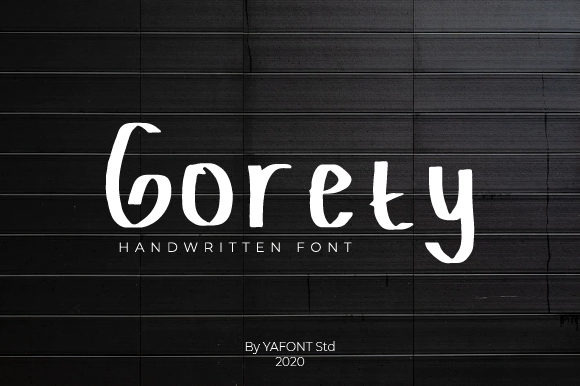
The Sweet Spot: Discovering the Charm of Gorety Font
I’ll never forget the frustration of working on a design project, hours spent perfecting every detail, only to be stumped by one thing: finding the right font. My client wanted something friendly, approachable, and uniquely sweet. I scoured the internet, tried countless fonts, but nothing seemed quite right. That was until I stumbled upon Gorety Font. ✨
A First Impression: What Makes Gorety Special
Gorety is a sweet and friendly handwritten font, boasting a natural and unique style that makes it incredibly fitting for a large pool of designs. The only limit is your imagination! Its versatility is unmatched, making it perfect for designers, crafters, and creative hobbyists alike.
An Honest Review: The Good and the Quirky
So, what do I love about Gorety Font? Here are a few highlights:
- ✅ Unique Style: Gorety’s natural, handwritten look is both refreshing and captivating.
- ✅ Versatility: From invitations to branding, this font adapts seamlessly.
- ✅ Ease of Use: Despite its unique features, Gorety remains surprisingly easy to work with, even for beginners.
- ✨ Aesthetic Appeal: It adds a touch of warmth and personality to any design.
However, no font is perfect. A few quirks to consider:
- ⚠️ Legibility at Small Sizes: While generally great, Gorety can get a bit tricky to read at very small sizes or in lengthy texts.
- 🤔 Overuse of Swashes: With great features comes great responsibility. Too many swashes or stylistic alternates can make your design look cluttered.
The Story Behind Gorety: A Designer’s Inspiration
Gorety Font was born from a desire to capture the essence of handwriting in a digital age. Its creator, inspired by traditional hand-lettering, aimed to craft a font that felt both personal and versatile. The result is a font that not only looks friendly and approachable but also brings a unique touch to any design project.
Q: Is Gorety suitable for body text?
A: While Gorety is stunning, it’s best used for headings or short paragraphs due to its unique style and potential legibility issues at small sizes.